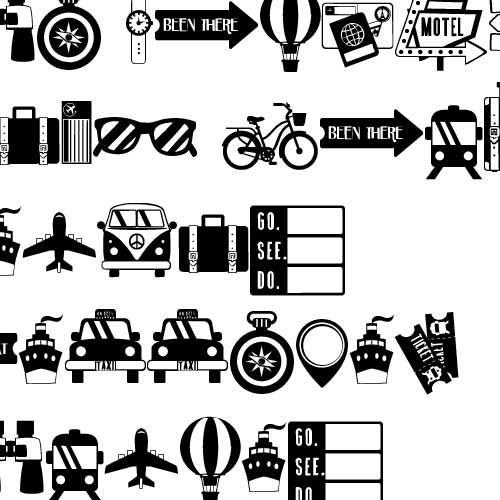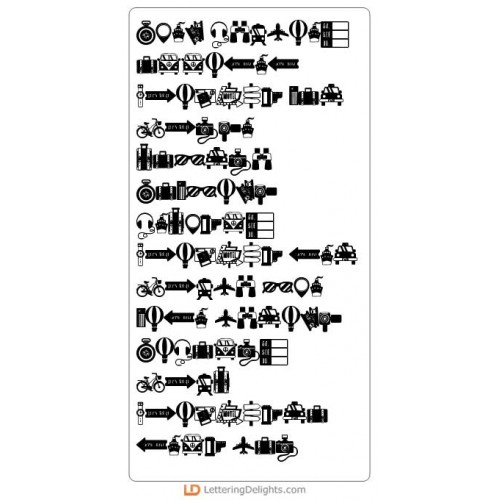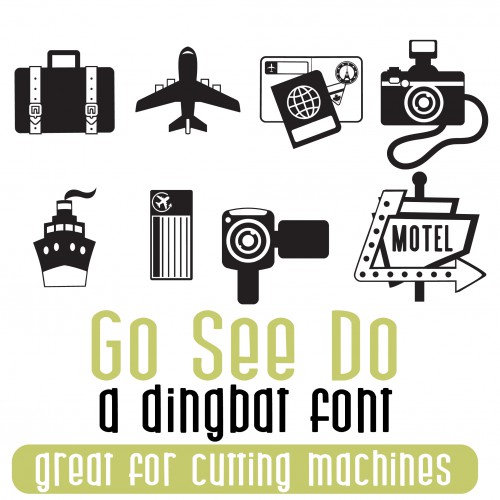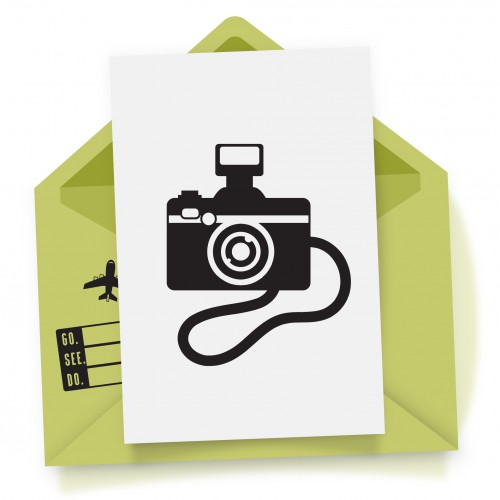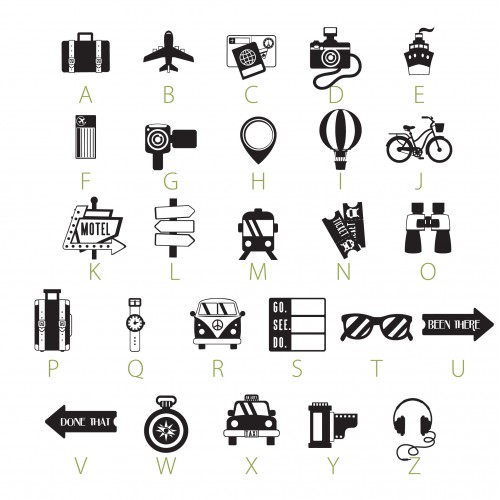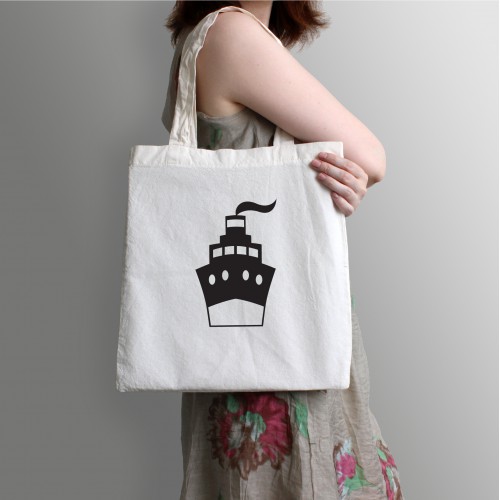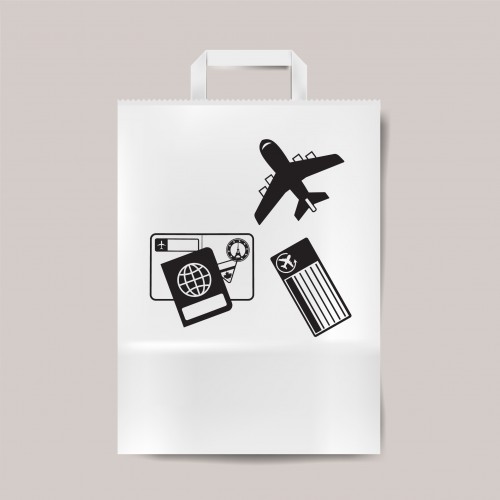
DB Go See Do - DB
This doodlebat font features 26 different travel themed silhouettes, perfect for documenting vacations, card making, scrap booking, planner stickers, parties, crafts and more!